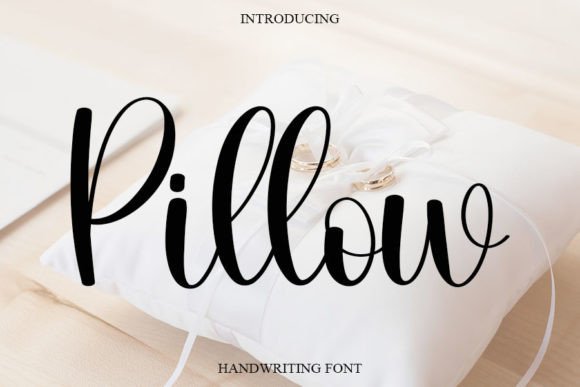
Behold, Pillow Font, the ultimate creative companion for your artistic endeavors!
Welcome to the realm of Pillow Font, a whimsical and enchanting handwritten font that will ignite your imagination and transform your creative projects into masterpieces. Step into a world where letters dance and flow with a touch of playfulness and charm, capturing the essence of handwritten elegance.
Unleash the endless possibilities of Pillow Font, a versatile font family that adapts effortlessly to a myriad of artistic expressions. Whether you're a seasoned designer or just starting your creative journey, Pillow Font will accompany you on every step of your design adventure.
Dive into a world of limitless creativity with Pillow Font. Let your imagination soar as you craft heartfelt greeting cards, breathe life into digital designs, and elevate presentations with a personal touch. The possibilities are boundless, waiting for you to explore and bring your visions to life.
Let Pillow Font be your creative muse, guiding you to create designs that resonate with your audience. Its playful spirit and elegant charm will add a touch of magic to every project, leaving a lasting impression that captivates and inspires.